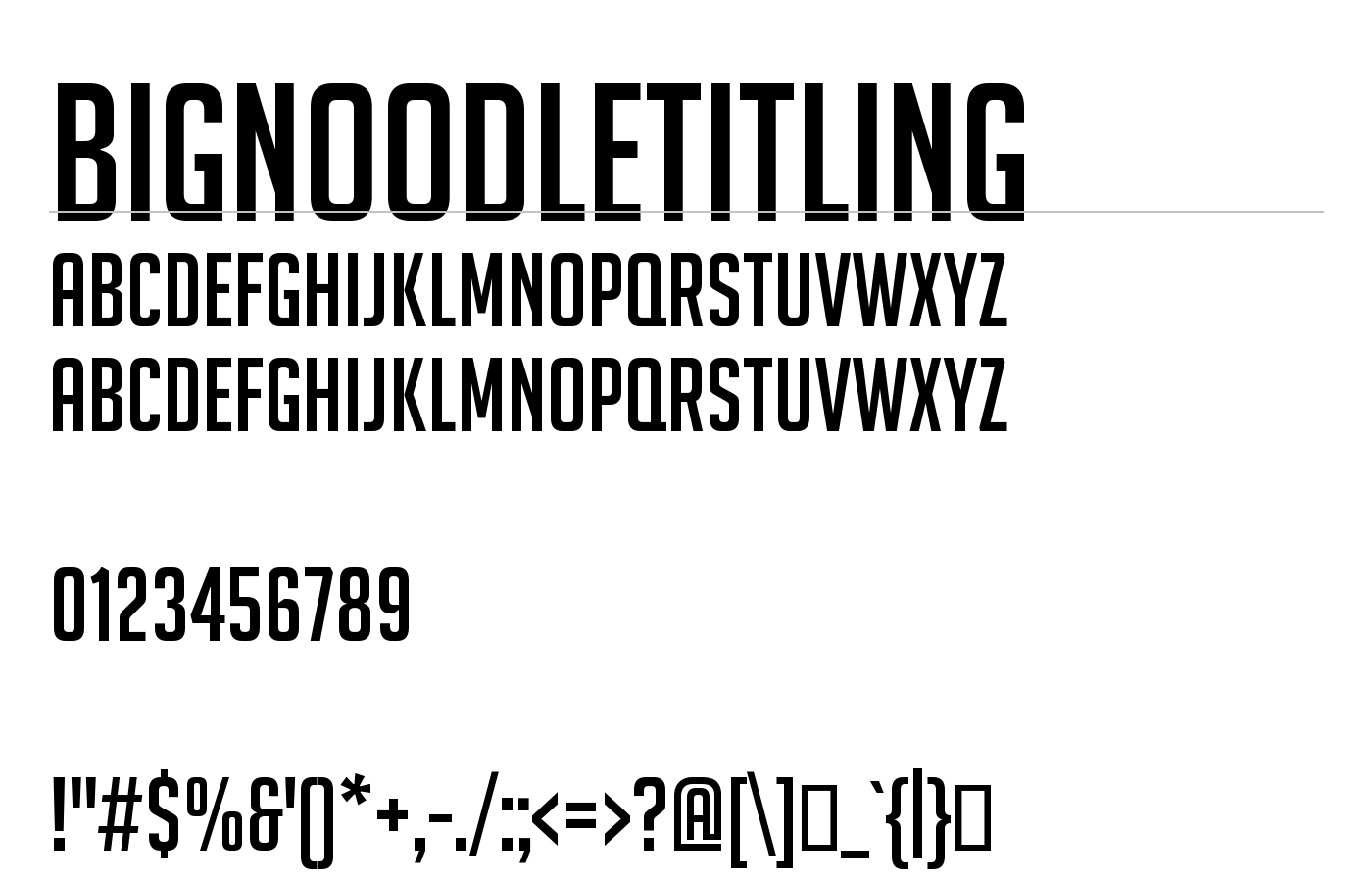
BigNoodleTitling is a bold, narrow sans serif font with a strong vertical emphasis and high x-height, making it highly legible and impactful. Its clean, geometric shapes and uniform stroke widths give it a modern, industrial feel perfect for striking headlines, posters, and branding that demands attention. This typeface works best in display settings where a confident and straightforward style is needed.
BigNoodleTitling Font
About BigNoodleTitling Font
| Font family | BigNoodleTitling Font |
| Designer | James Arboghast/Sentinel Type |